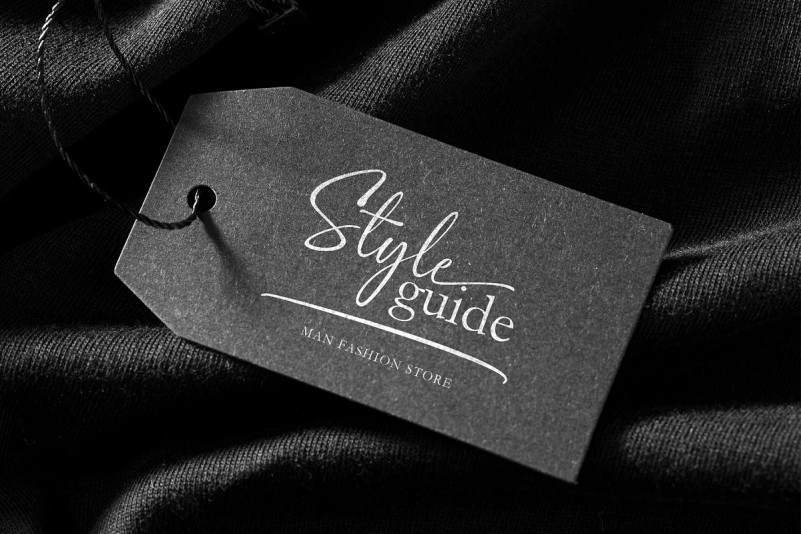
Rich Calligraphy Font
Rich is a sweet, casual and versatile handwritten font. Great for crafty designs!
Get inspired by its authentic feel and use it to create gorgeous wedding invitations, beautiful stationary art, eye-catching social media posts, and cute greeting cards.